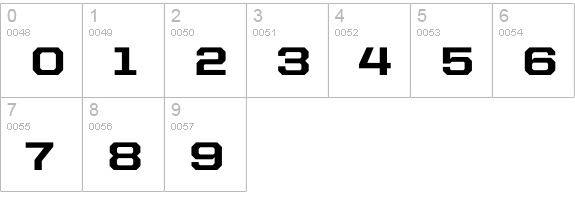
United Sans SemiExt Heavy Font Details
United Sans SemiExt Heavy is a heavy, high-impact variant in the United typeface family \xE2\x80\x94 well suited to high-impact headlines, posters, and display advertising.
United Sans SemiExt Heavy is a remarkable font that effortlessly combines modernity with classic elegance. Its bold and sturdy letterforms make a strong visual impact, commanding attention and leaving a lasting impression. This typeface exudes a sense of power and authority, making it perfect for headlines, titles, and any design that demands attention. The United Sans SemiExt Heavy font boasts a unique balance between sharp edges and soft curves, creating a harmonious and pleasing aesthetic. Each character is meticulously crafted with precision, ensuring optimal legibility even at small sizes. The generous spacing between letters allows for easy readability and enhances the overall visual appeal of any design. What sets United Sans SemiExt Heavy apart is not only its exceptional design, but also its accessibility. This font is freely available to download at FontsMarket.com, making it easily accessible to designers, creatives, and enthusiasts alike. Whether you're working on a personal project or a professional undertaking, this font provides a versatile and reliable typographic solution. United Sans SemiExt Heavy is a versatile typeface that effortlessly adapts to various design contexts. Its bold and commanding presence makes it ideal for branding, logo design, packaging, and advertising materials. Additionally, its clean and contemporary appearance makes it a go-to choice for editorial design, web design, and user interfaces. The United Sans SemiExt Heavy font is a true testament to the power of typography in visual communication. It combines style, legibility, and accessibility in a way that captivates the audience and elevates any design. With its availability for free download at FontsMarket.com, there is no reason not to explore the endless possibilities that this font offers. So go ahead, unleash your creativity and experience the impact of United Sans SemiExt Heavy.